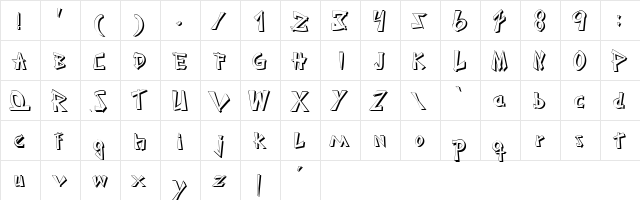
JaponesaShadow Regular Font Preview
JaponesaShadow Regular
JaponesaShadow Regular Font Details
| Foundry | Iza W, Intellecta design |
Design Context for JaponesaShadow Typeface
JaponesaShadow is built around its visual character rather than neutral utility — its distinctive forms are designed to make an impression at display sizes.
Font Pairing: Pair with a clean neutral sans-serif for body copy to let JaponesaShadow's character lead without overwhelming the composition.
Pro Tip: Use JaponesaShadow exclusively at display sizes — it was designed to be seen, not read at length. Let a neutral companion handle body copy.